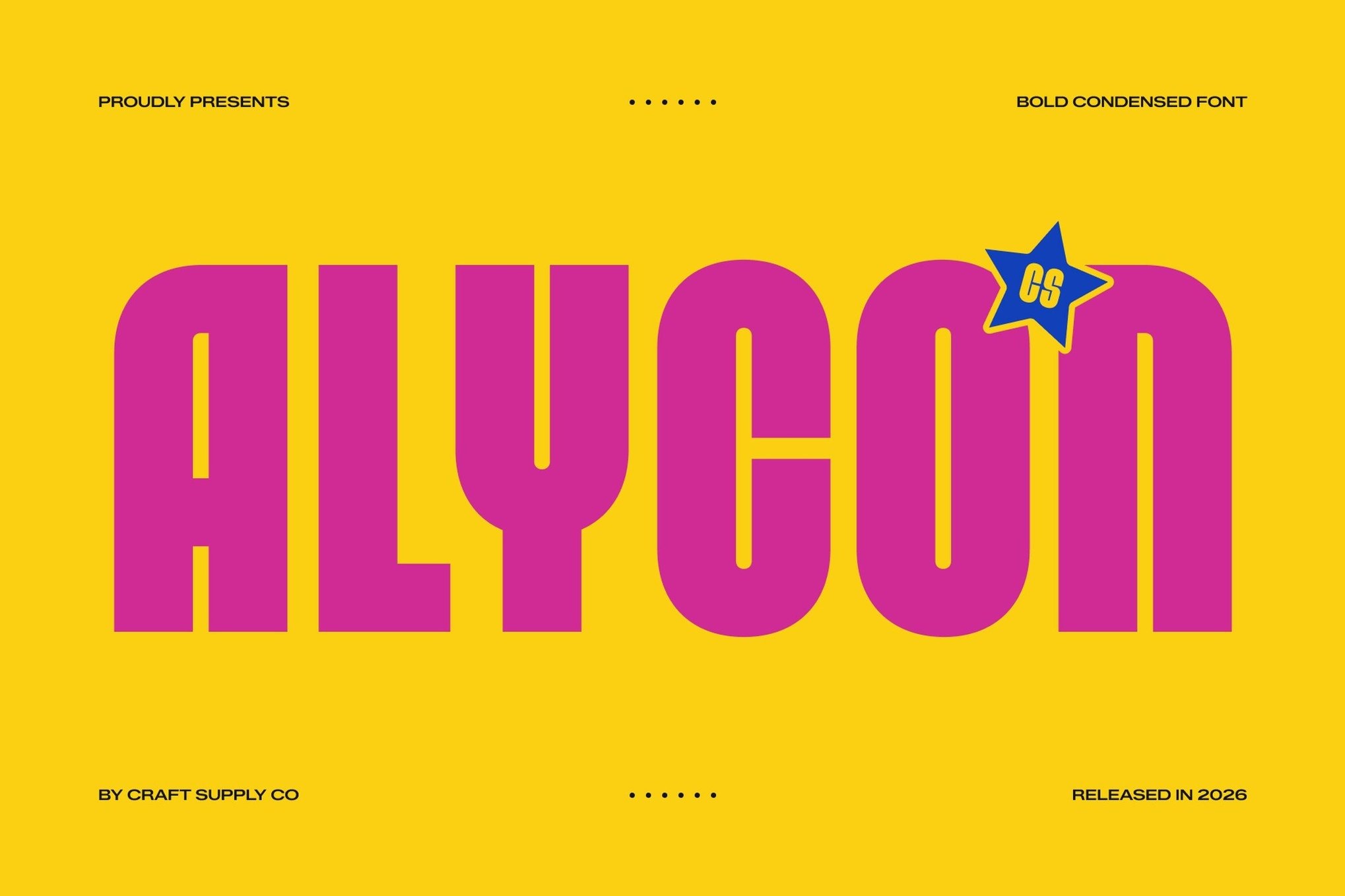
CS Alycon – Bold Condensed Font
CS Alycon – Bold Condensed Font is a premium-quality font developed to enhance your work with a polished, modern, and visually elevated look. CS Alycon – Bold Condensed Display Sans Serif: Where 80s Retro Energy Meets Modern Precision Condensed Letterforms with Bold Visual Impact This is a bold condensed display sans serif font designed to command attention through its compact proportions and confident structure. Its strong, space-efficient letterforms maximize visual impact while maintaining excellent clarity, making it ideal for bold headlines and striking display typography. The condensed construction allows every composition to feel powerful without overwhelming the layout.
1980s Inspiration with Contemporary Clarity This font captures the playful energy and bold confidence of retro typography while maintaining a clean, modern edge. Its balanced forms evoke nostalgic charm without feeling dated, resulting in a typeface that seamlessly bridges vintage aesthetics and contemporary design sensibilities.
Playful Personality with Assertive Presence This font strikes the perfect balance between playful expression and assertive strength. Its bold condensed style gives headlines, logos, and brand marks a commanding presence, while its clean construction ensures versatility across a wide range of creative applications. This combination creates typography that feels lively, memorable, and distinctly modern with a retro twist.
Perfect for Posters, Packaging, and Bold Branding Perfect for posters, packaging, logo design, branding, editorial headlines, advertising campaigns, event graphics, and contemporary visual identities. Its retro-inspired energy and condensed bold construction make it ideal for projects that demand personality, clarity, and lasting visual impact.